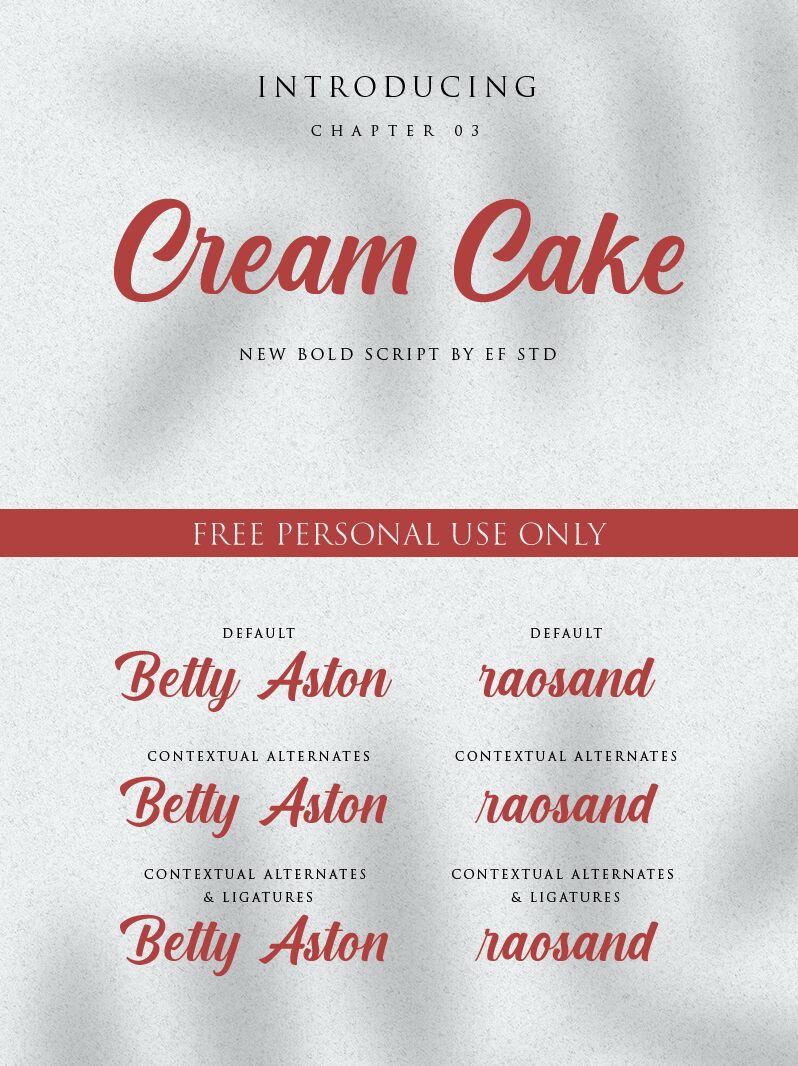
Cream Cake Bold
Cream Cake Bold font by Ef Studio is a stylish and bold calligraphy typeface with smooth edges inspired by cursive handwriting. Staying true to its name, the style of this free font is elegant, much like the cream cake it was named after. Its aggressive and blunt endings make for an unmistakable legacy that customers left and right will remember.
Use Cream Cake acts as an excellent label font. Adding any text written with it on a packaging mockup will upscale your design professional level and quality in seconds! Use it for book covers, advertisements, business cards, stamps, posters, magazines or headlines in all their types!
Features: Lowercase & Uppercase, Contextual Alternates & Ligatures.